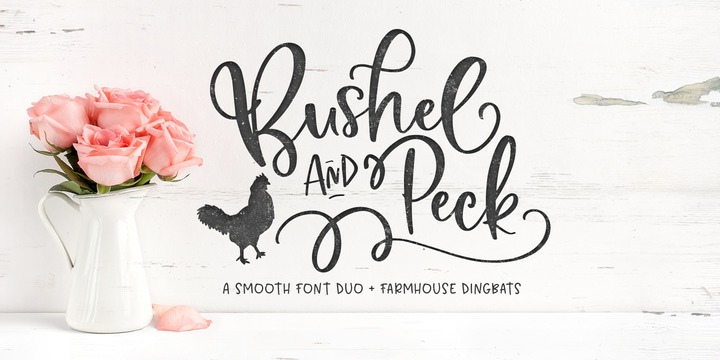
Bushel And Peck Font
Bushel And Peck Font is perfect for farmers market branding, organic produce packaging, farm-to-table restaurant signage, agricultural cooperative logos, harvest festival promotions, country store advertising, rural community materials, orchard and vineyard branding, agricultural education resources, and wholesome family farm communications.
What makes Bushel And Peck Font so exciting is its extraordinary ability to capture the wholesome abundance and agricultural heritage of American farming through letterforms that seem to carry the warmth of harvest sunshine and the honest satisfaction of hard-working farm life. This hearty typeface embodies the essence of agricultural prosperity and rural community values with characters that radiate the generosity, authenticity, and time-honored traditions that define America's farming heritage. The font's agricultural design elements perfectly balance rustic charm with professional reliability, creating an indispensable tool that communicates harvest abundance, farming expertise, and wholesome quality, making it essential for agricultural businesses and organizations that celebrate the vital connection between land, community, and nourishing food production.
Bushel And Peck Font comes in multiple font families including Regular, Bold, Light, Italic, Bold Italic, Harvest, Rustic, and Abundant variations. Each family member maintains the core agricultural characteristics while offering different abundance levels and stylistic approaches to suit various farming and agricultural design requirements.
The agricultural authenticity in Bushel And Peck Font makes it particularly effective for farming operations and agricultural organizations where conveying genuine farming heritage and harvest quality is crucial for building trust with consumers seeking authentic, locally-produced agricultural products and farm-fresh experiences. Its hearty letterforms work exceptionally well across all agricultural applications, from produce packaging to farm signage, maintaining consistent farming appeal and agricultural credibility.
Agricultural marketing professionals recognize how Bushel And Peck Font transforms ordinary farm communications into compelling invitations to authentic agricultural experiences and wholesome farm-to-table connections. The typeface's farming character set includes special agricultural symbols, harvest elements, and farm indicators that enhance the overall agricultural atmosphere of any farming-focused project.
For creative professionals serving agricultural businesses, farmers markets, and rural community organizations, Bushel And Peck Font serves as the perfect foundation for establishing memorable visual identities that capture the essential qualities of farming heritage, harvest abundance, and agricultural authenticity that define successful farming enterprises connecting consumers with the wholesome goodness and community values of authentic American agriculture.